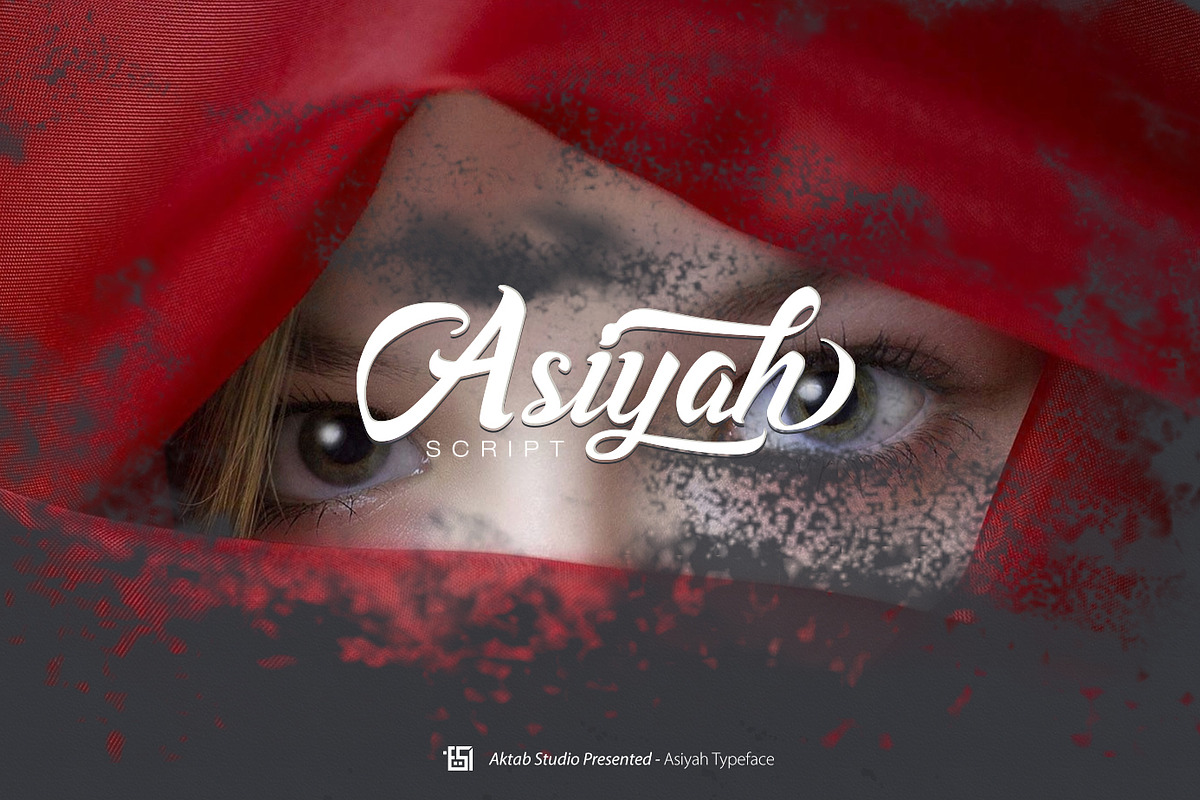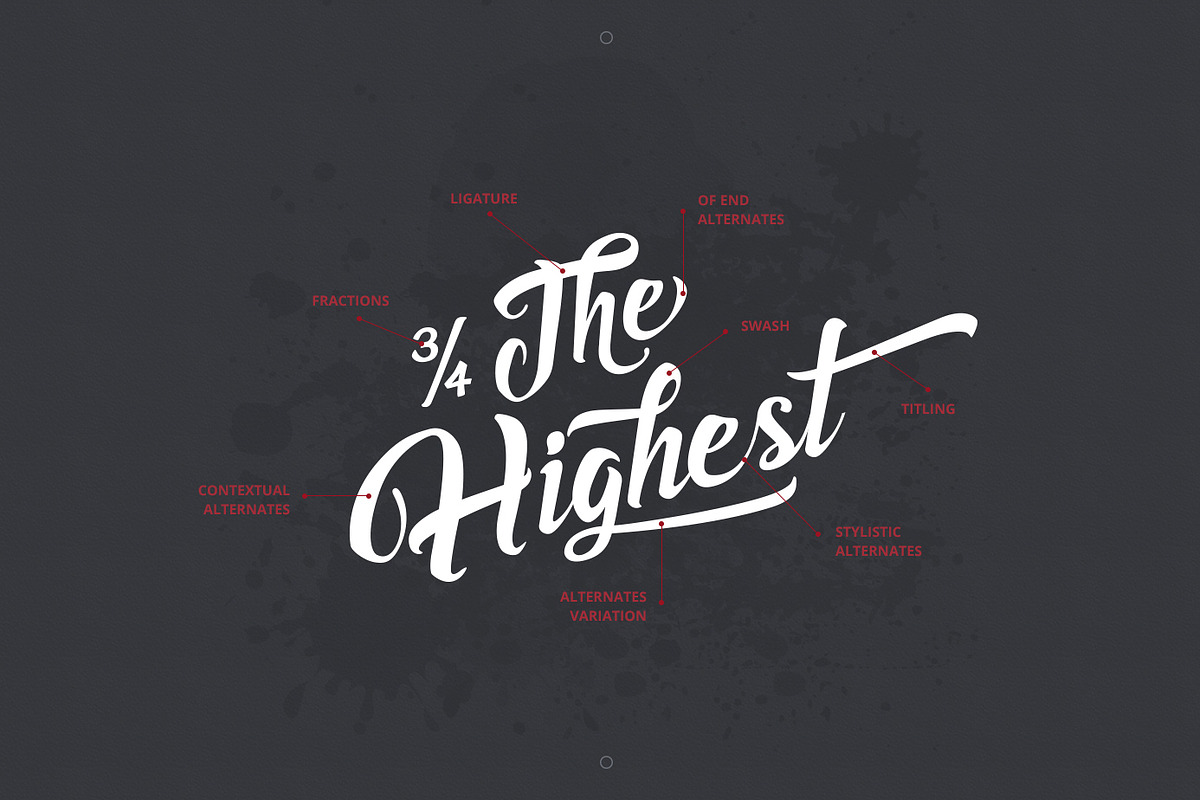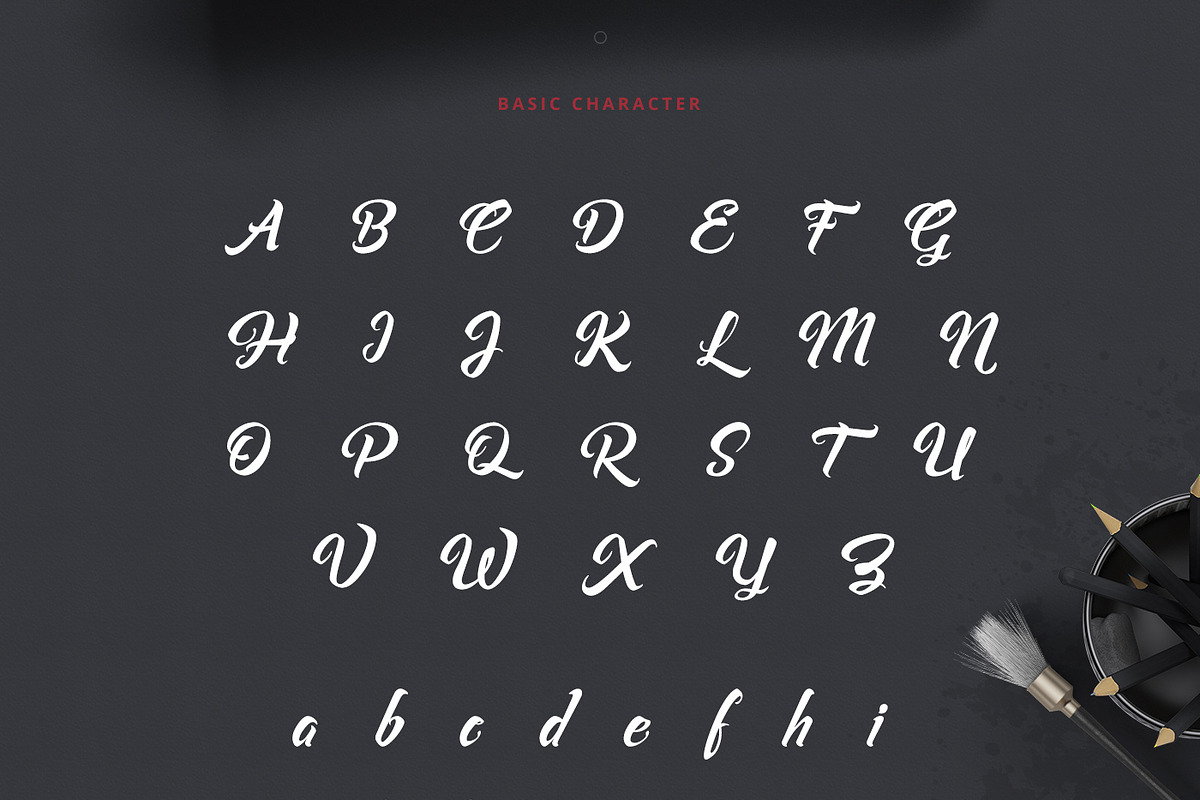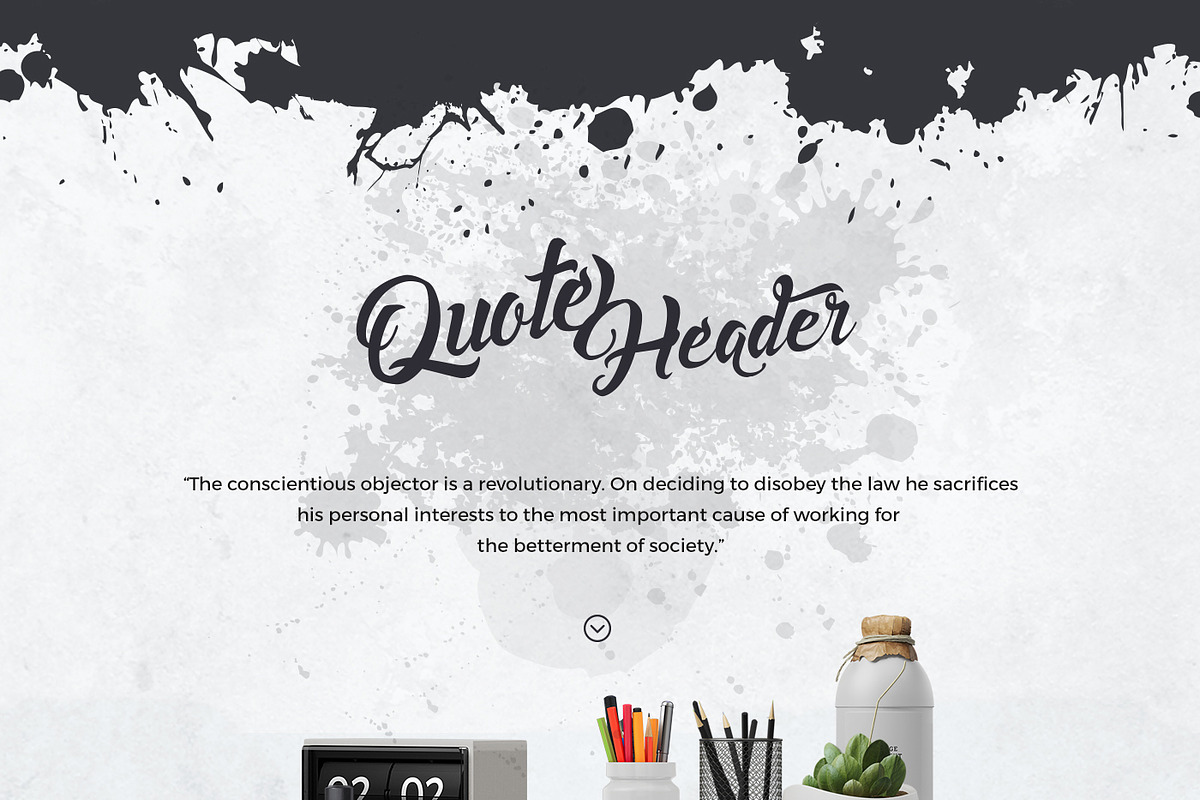
Asiyah Script Font|Update v.2
Asiyah Script Font|Update v.2 by Aktab Studio is a font selected for branding, posters, packaging, typography.
- Most diacritics are included and the font can be used with most of the European languages.
Why Asiyah Script Font|Update v.2 is worth a look
Asiyah Script Font|Update v.2 by Aktab Studio fits naturally into Branding, posters, packaging, typography.